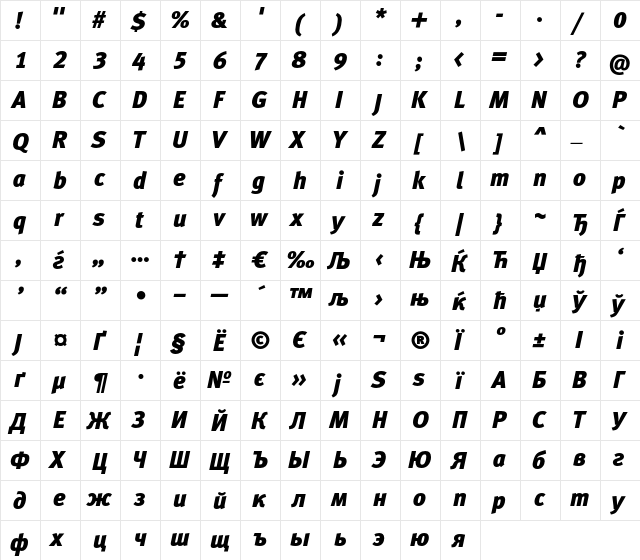
MetaBlackCyrLF-Italic Regular
Design Context for MetaBlackCyrLF-Italic Typeface
MetaBlackCyrLF-Italic is a composed and adaptable typeface that performs quietly and consistently across a wide range of design contexts. The dynamic lean of this cut emphasises speed and emphasis in any layout.
Pro Tip: Use MetaBlackCyrLF-Italic for emphasis, pull quotes, and subheadings where its slanted energy can add rhythm to the layout.